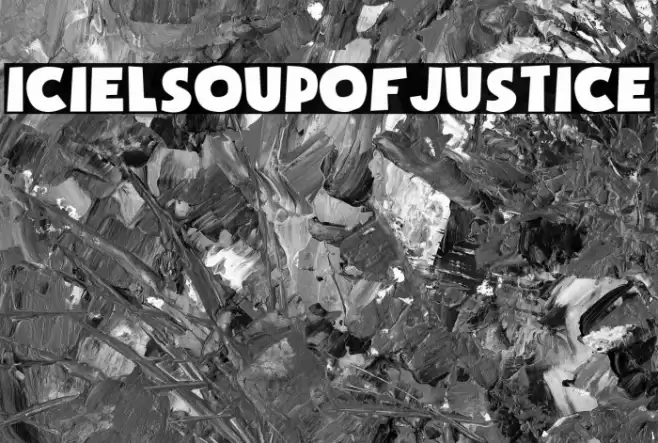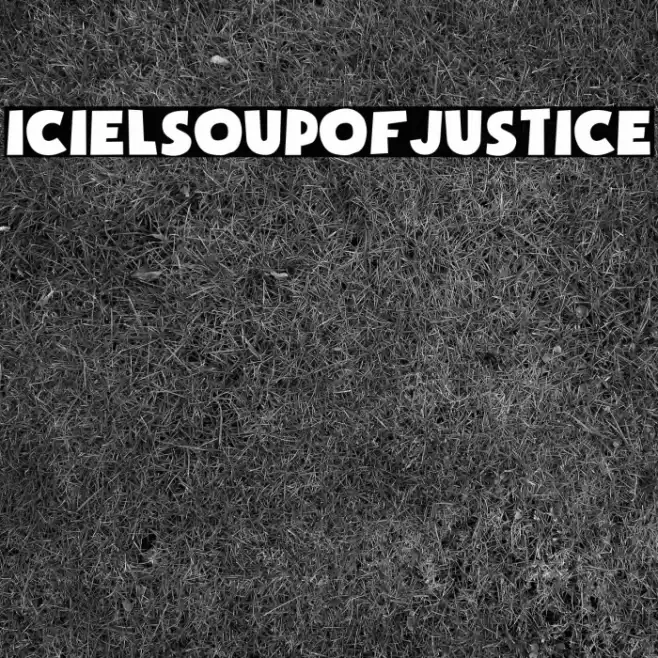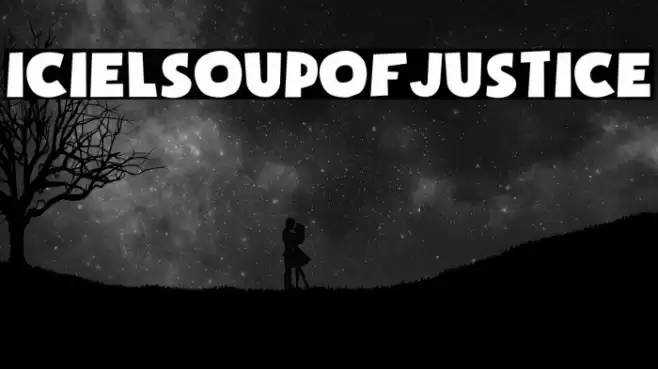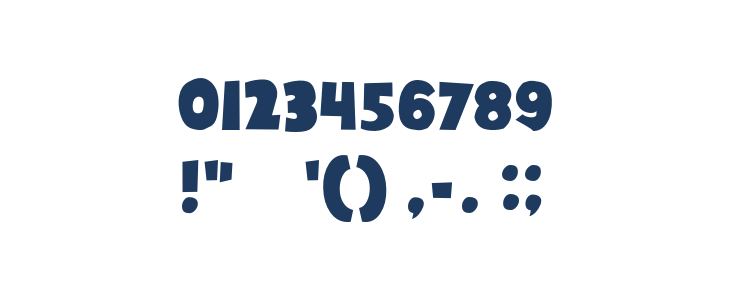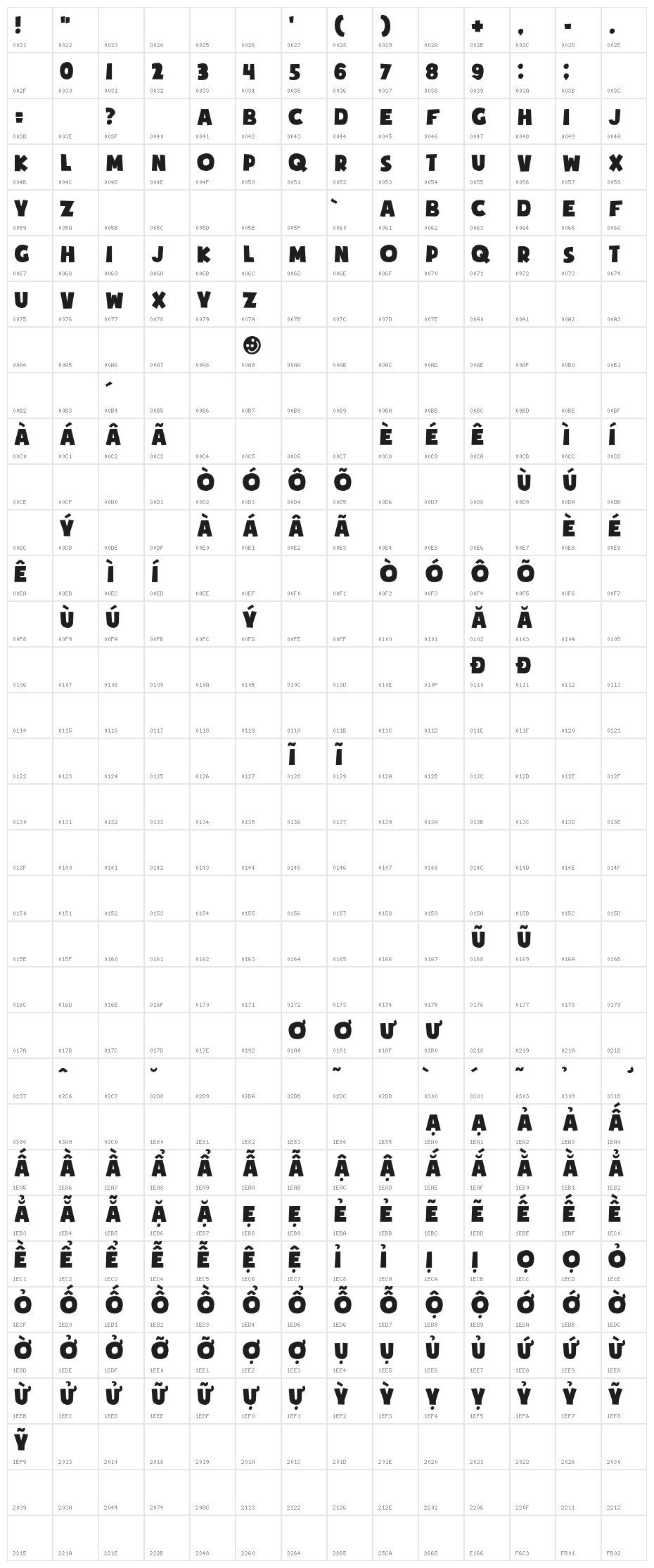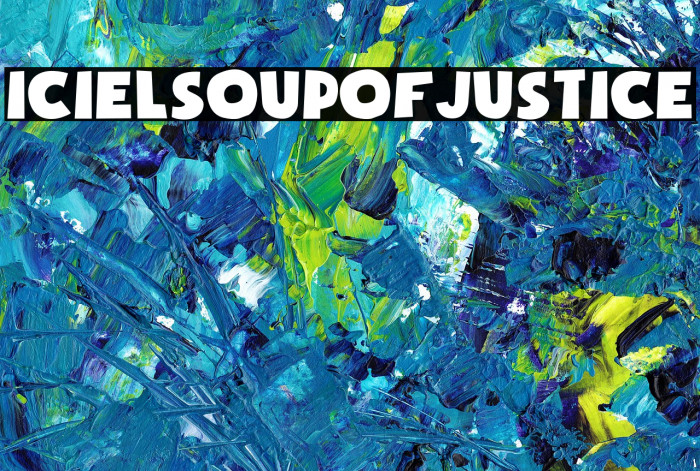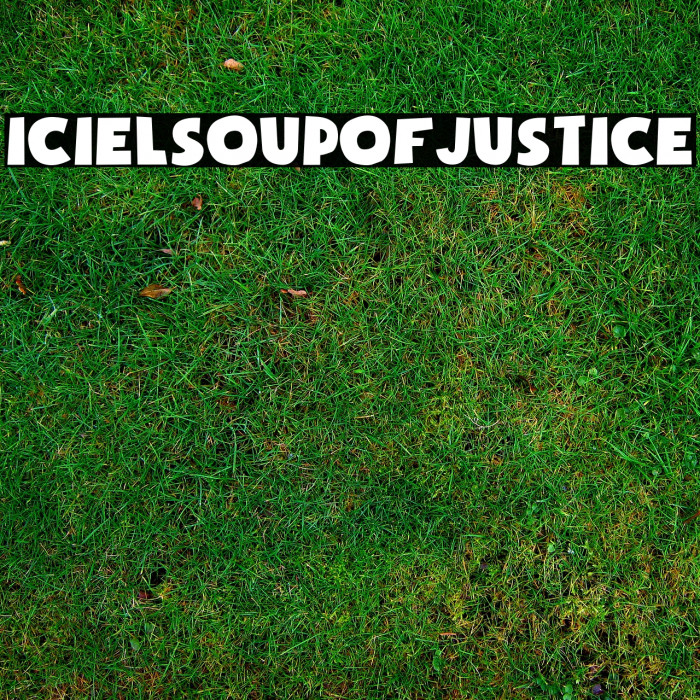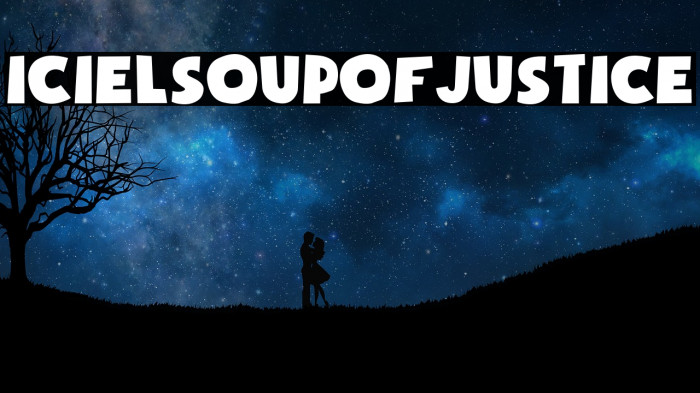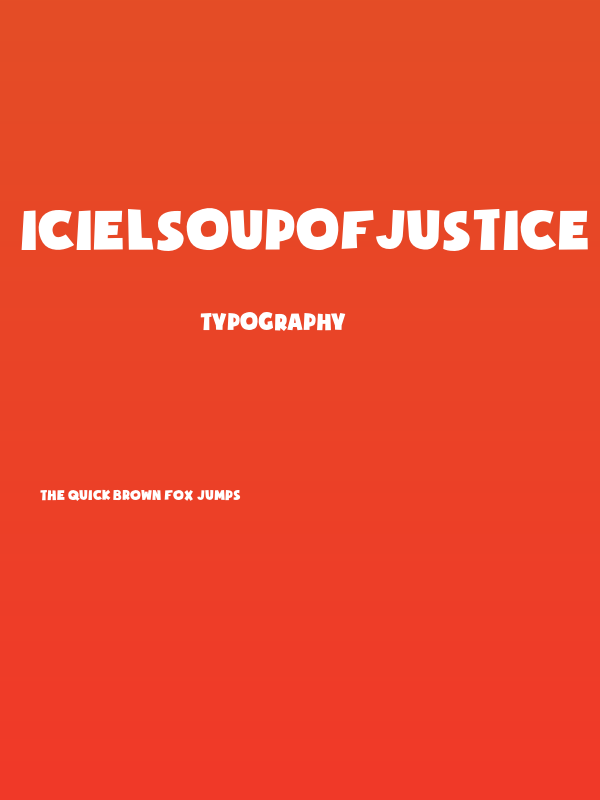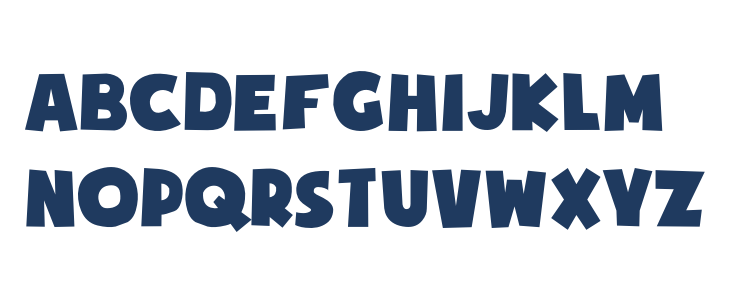
iCielSoupofJustice Font
iCielSoupofJustice Description
This font features bold, playful characters with a distinctively chunky and slightly irregular style. The letters have a strong presence, with thick strokes and a whimsical flair that adds a sense of fun and creativity. The uppercase and lowercase letters maintain a consistent weight, contributing to a cohesive look. The numbers and special characters share the same boldness, ensuring uniformity across all glyphs. The font's unique style makes it stand out, making it ideal for projects that require a touch of personality and vibrancy.
A bold, playful font with chunky, whimsical characters from Uncategorized fonts.
- Proposed Projects: Ideal for children's books, comic strips, playful branding, and eye-catching posters.
- Overall Style: Playful, Whimsical